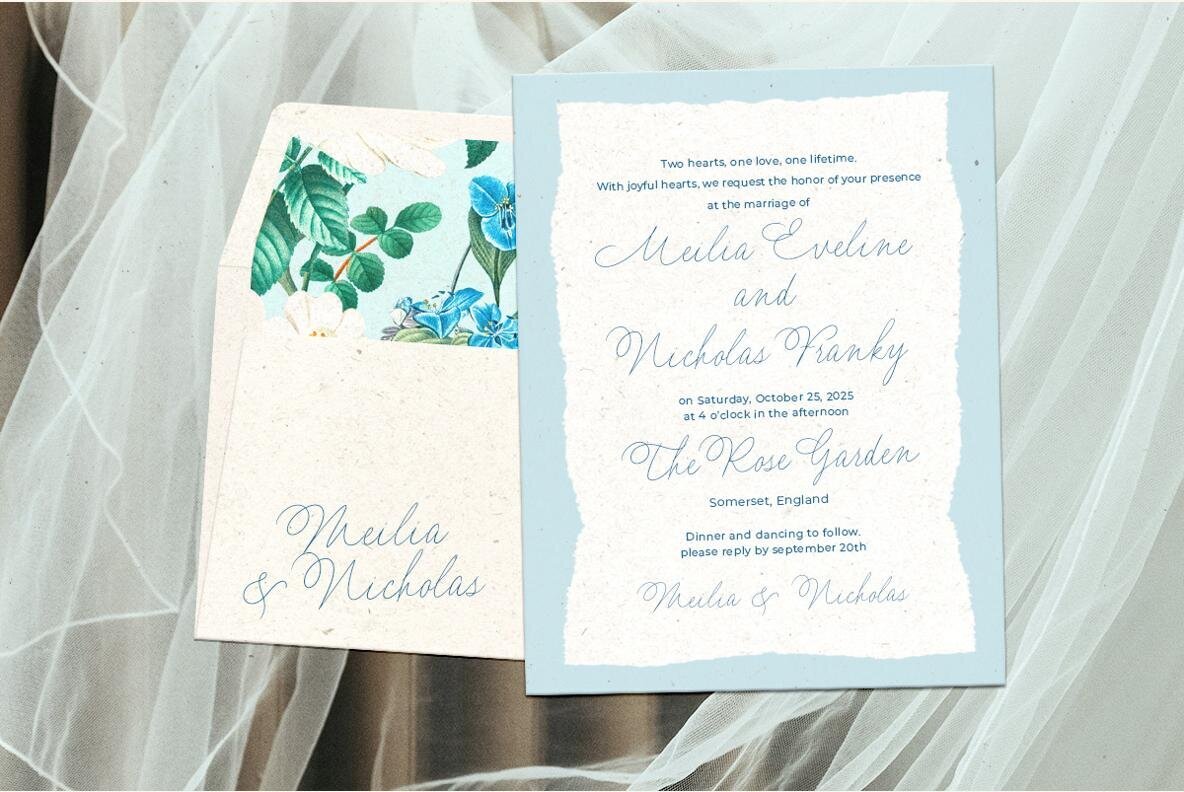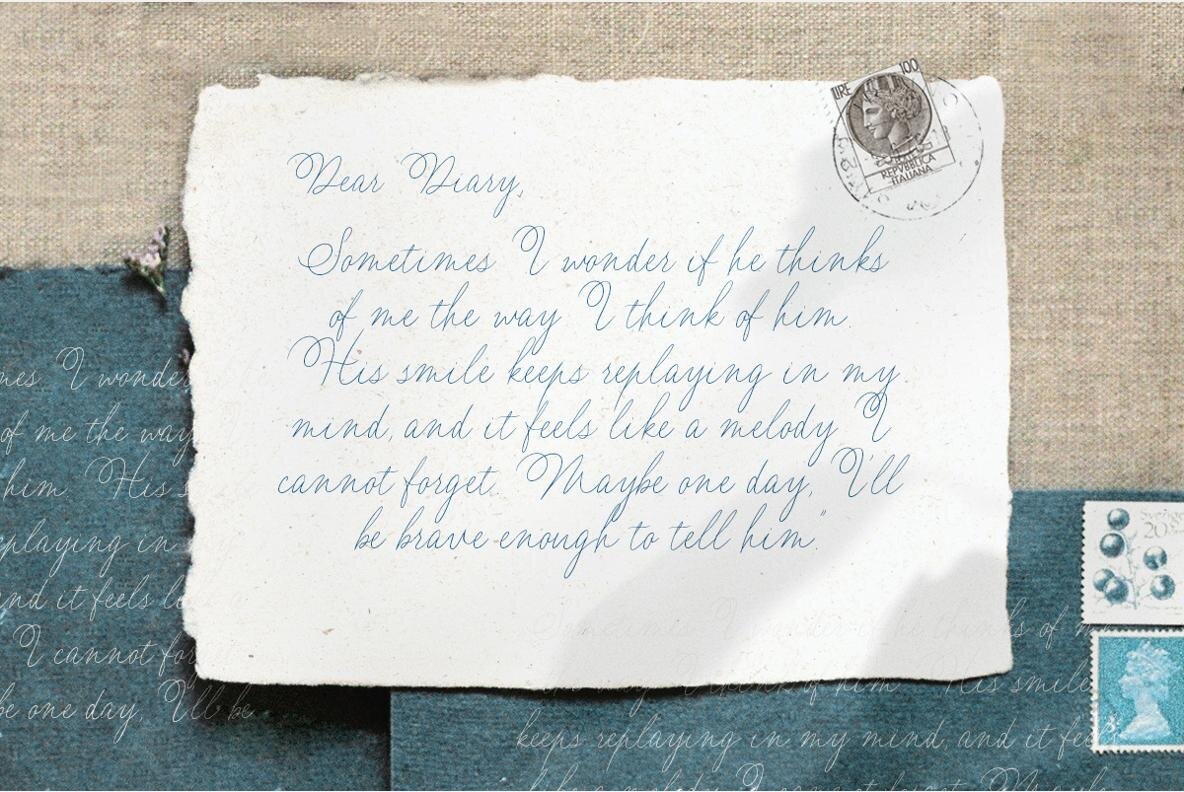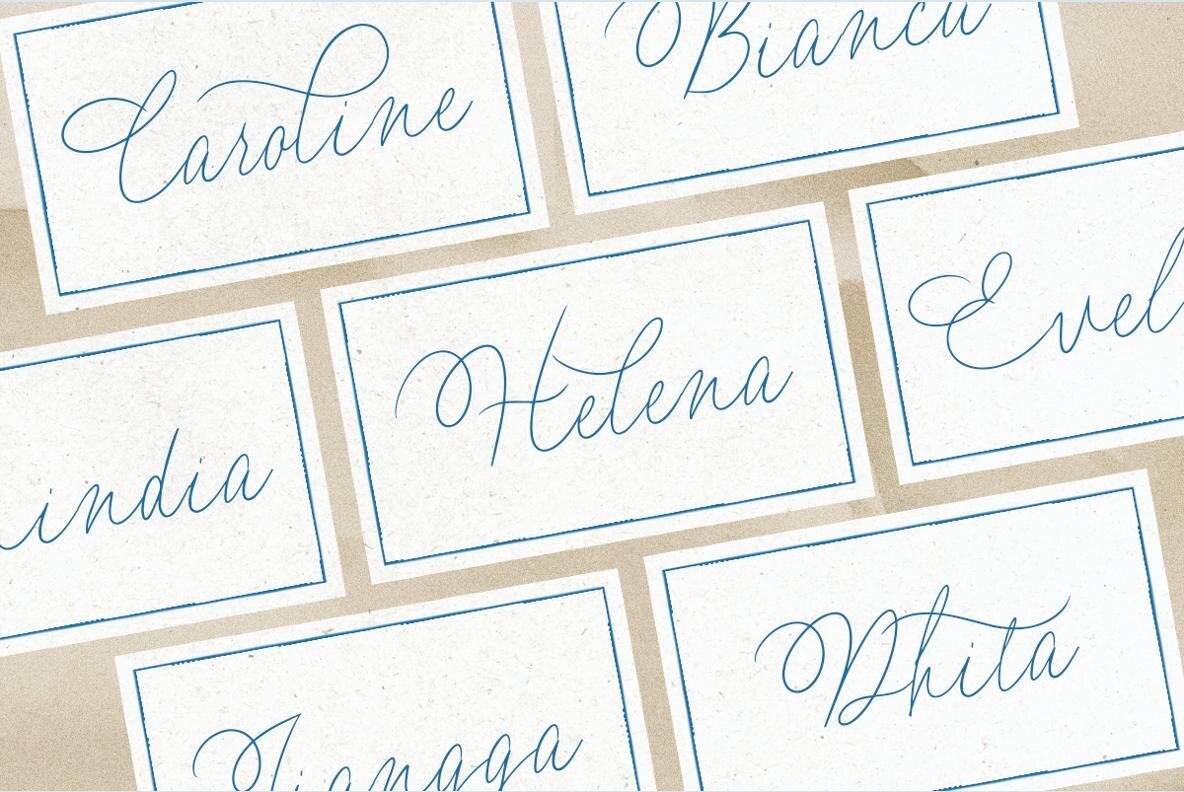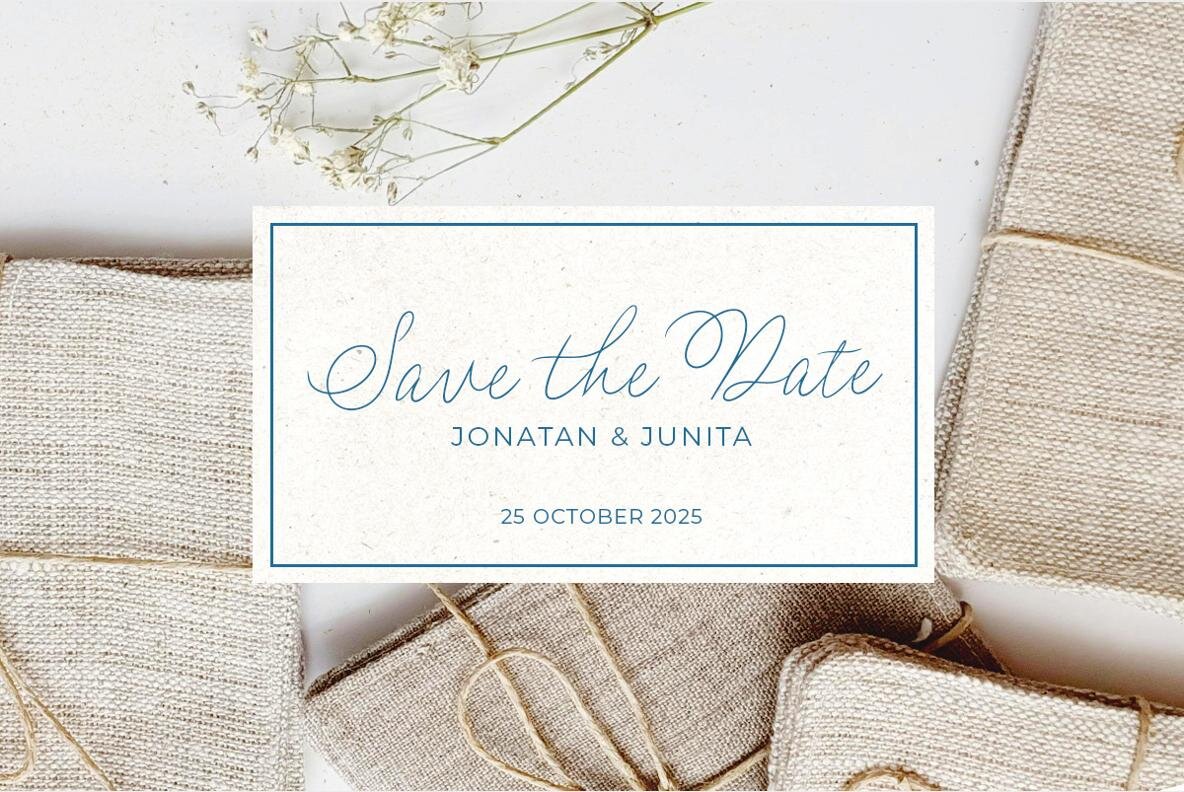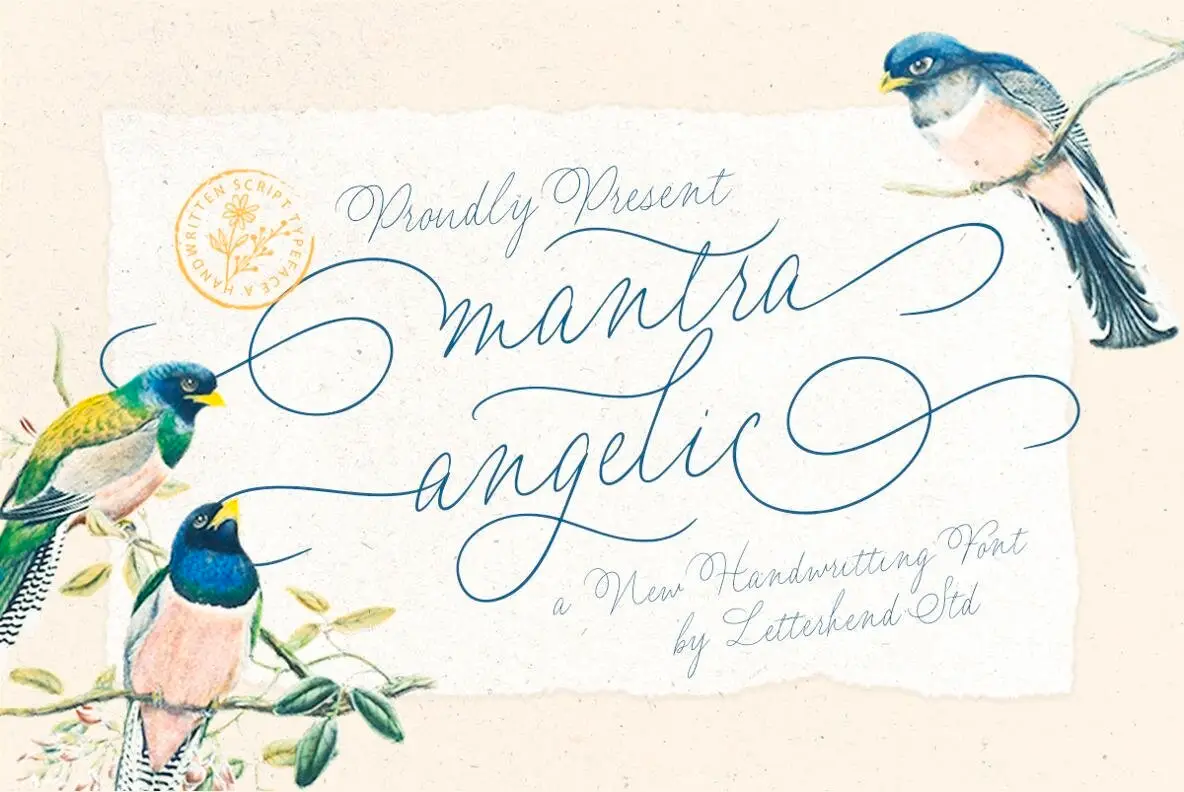
Mantra Angelic Font
Mantra Angelic Regular
Mantra Angelic is an exquisite handwritten script font that exudes elegance and warmth. With its flowing curves and delicate swashes, this font adds a soft, romantic appeal to any project. Its timeless design is perfect for wedding invitations, greeting cards, branding materials, and more, providing a touch of sophistication that transcends trends. Its angelic strokes offer refined charm while maintaining the organic feel of handwriting, making it incredibly versatile for both formal and creative designs. To fully utilize its OpenType features, we suggest using programs such as Adobe apps or Corel Draw, where you can access an array of glyph variations with ease.Mantra Angelic: A Timeless Handwritten Script